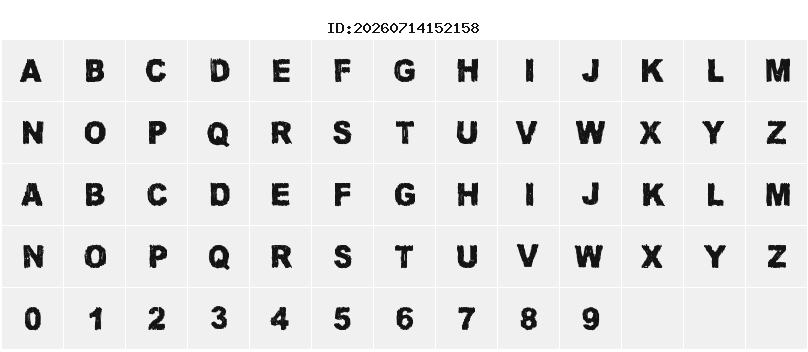
• Font Name: Jamaica Aroma
• Designer: junkohanhero
About Jamaica Aroma.ttf
Jamaica Aroma.ttf is a modern, elegant sans-serif font designed for ultimate readability and visual harmony. Perfect for branding, headlines, web design, and print materials.